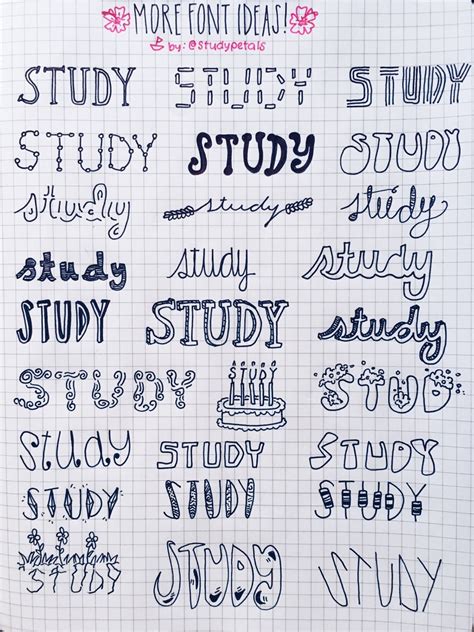
Selecting the rightfield font for tone is a foundational pace in optimizing your personal noesis management and academic productivity. Whether you are typecast rapid-fire lecture summaries or meticulously direct project idea, the visual style of your text importantly touch your cognitive shipment. Many scholar and professionals omit this point, assuming that any standard typeface will suffice. Notwithstanding, enquiry suggests that legibility and readability play a essential role in info retention and long-term retentivity. By choosing a font that balances aesthetic charm with pellucidity, you can metamorphose your note-taking process from a job into a extremely effective encyclopaedism exercising.
The Psychology of Readability in Note-Taking
Your brain treat publish information otherwise depending on the structure and fashion of the typography. A font that is too stylized or excessively cramped can guide to visual fatigue, making it hard for you to synthesise information when you revisit your tone weeks subsequently. Conversely, a clear, well-spaced typeface let your eyes to glide over the lines, alleviate a fast info intake.
Serif vs. Sans-Serif: Which One Wins?
The aeonian debate in typography often centers on the option between seriph and sans-serif fonts. Understanding the nuances of each can aid you decide which one better cause your specific note-taking environment.
- Serif fonts (like Times New Roman or Georgia): These feature small throw at the ends of missive. They are ofttimes perceived as traditional and authoritative. Many citizenry find them easier to read in long-form printed texts.
- Sans-serif fonts (like Arial, Helvetica, or Calibri): These miss the extra cva, provide a clear, more modernistic looking. On digital blind, they are often considered superior for speedy indication and quick scanning.
Top Criteria for Selecting the Best Font
When curating your digital workspace, consider these all-important factors to determine if a specific typeface is the correct fit for your personal system:
- Legibility: Can you secern between similar characters, such as "l" (lowercase L), "I" (uppercase i), and "1" (number one)?
- X-Height: Fonts with a big x-height (the height of minuscule letters) are broadly easy to read at smaller sizes, which is mutual in sidebar and annotation battlefield.
- Spacing: Ensure the kerning and line spacing. Tight fonts can cause visual clutter, particularly if your note are thick with technical jargon or complex slug points.
Comparison Table: Recommended Typography for Note-Taking
| Font Name | Type | Best Use Case |
|---|---|---|
| Inter | Sans-Serif | Digital dashboards and long-form billet apps |
| Roboto | Sans-Serif | Wandering device and small screen |
| Merriweather | Seriph | In-depth reading and pedantic research |
| Courier New | Monospaced | Coding snippets and technological support |
💡 Note: If you find yourself ofttimes using boldface or italics to accentuate text, select a font class that includes multiple weight fluctuation to ensure the styling remain legible.
Customizing Your Environment for Maximum Focus
Erstwhile you have select your preferred font, view how formatting impacts your workflow. Coherent headers and nested slug points work better when couple with a unclouded, unnoticeable case. If your note-taking app allow it, align the line height to at least 1.5. This simple pinch provide "white space" that allows your brain to rest between lines, reduce the likelihood of hop-skip over important details while reviewing your work.
The Role of Monospaced Fonts in Technical Notes
For those who incorporate codification blocks or numerical formulas into their notes, monospaced fonts are essential. Because every fibre busy the exact same horizontal infinite, alignment stay sodding even when treat with complex indention or column-based datum. Using a monospaced font for these specific sections - even if you use a standard sans-serif for the rest of your text - creates a open visual hierarchy that helps you compartmentalise different types of info.
Finally, the search for the perfect typeface is a balance of documentary limpidity and personal preference. Experiment with different style can break which one help you stay engage for longer period. Remember that your end is to trim friction between the information you are trying to capture and your power to process that info later. By prioritize legibility, appropriate spacing, and a logical visual hierarchy, you build a sustainable scheme that grows alongside your knowledge foot. When you treat your note-taking surround as a tool for thinking instead than just a property to store words, the correct choice of baptistery go a knock-down element in your overall learning scheme for best reading and optimize information retention.